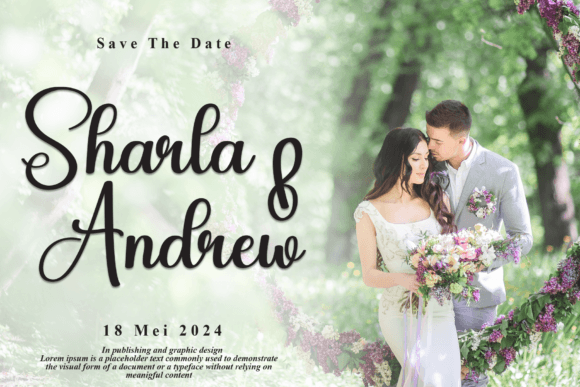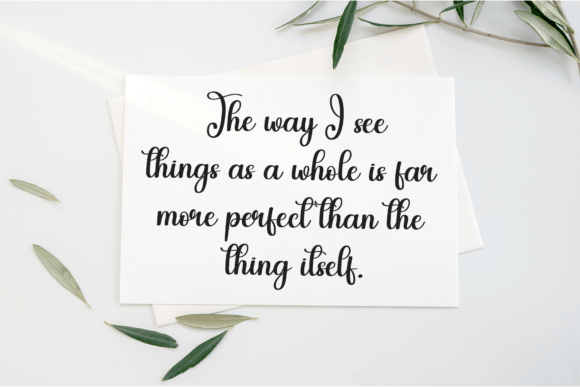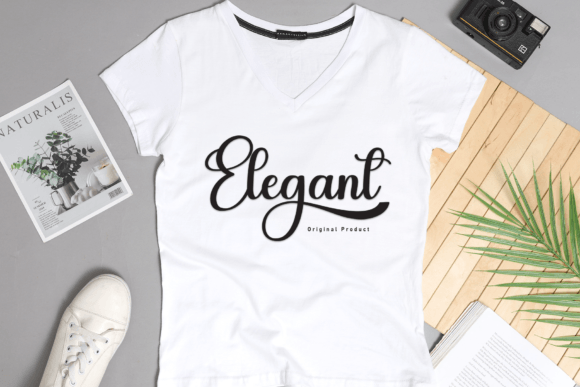
Introduction to Regard Font
Regard is a sweet and friendly handwritten font.
Why Choose Regard Font?
Regard Font offers exceptional quality and versatility, making it a valuable addition to your design toolkit. Whether you’re creating for personal projects or commercial use, Regard Font delivers professional results.